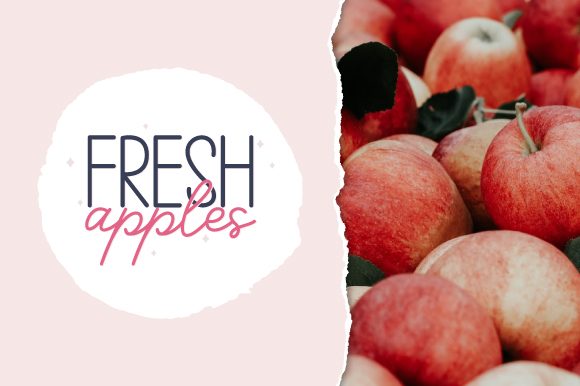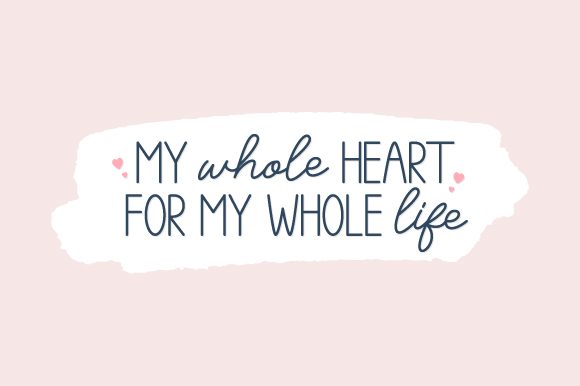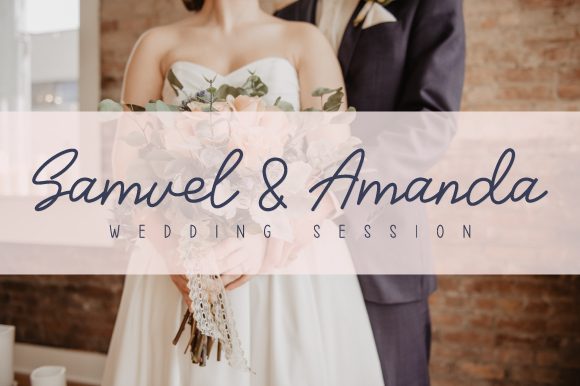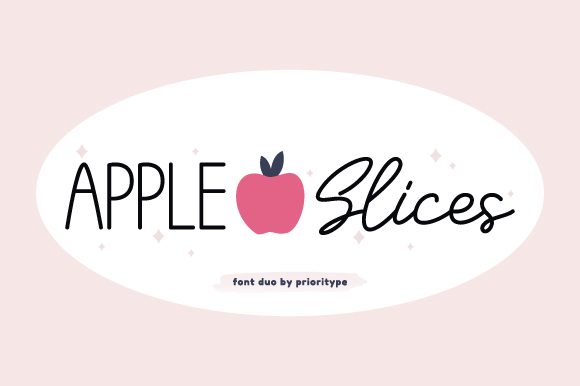
The Sweetness of Apple Slices Font: A Designer’s Delight
I’ll never forget the time I was working on a project for a client’s bakery, and I was struggling to find the perfect font to match their brand’s playful and whimsical vibe. The client wanted something that would make their customers feel like they’re biting into a fresh, juicy apple – and I was determined to deliver. That’s when I stumbled upon Apple Slices, a thin and delicate script font that instantly caught my eye. Its sweet and full of life style makes this font a wonderful choice for brightening up your designs, and I’m excited to share my love for it with you!
An Honest Review of Apple Slices Font
- ✨ Delicate and elegant: Apple Slices is perfect for designs that require a touch of sophistication and whimsy.
- ✅ Highly legible: Despite its thin lines, Apple Slices is surprisingly easy to read, even at small sizes.
- 💕 Versatile: This font is suitable for a wide range of design projects, from branding and packaging to invitations and social media graphics.
While Apple Slices is an amazing font, it’s not perfect. Here are a few things to keep in mind:
- 🤔 Limited bold options: Apple Slices is a thin font, and while it’s beautiful, it may not be the best choice if you need a bold, attention-grabbing font.
- ⚠️ Not ideal for body text: While Apple Slices is legible, it’s still a script font, and may not be the best choice for long blocks of body text.
- Experiment with OpenType features like ligatures and stylistic alternates to add some extra flair to your design.
The Backstory of Apple Slices Font
Apple Slices was designed by a team of typographers who wanted to create a font that would evoke the feeling of biting into a fresh, juicy apple. They drew inspiration from classic script fonts, but with a modern twist. The result is a font that’s both elegant and playful, perfect for designs that need a touch of whimsy.
| Author | Prioritype |